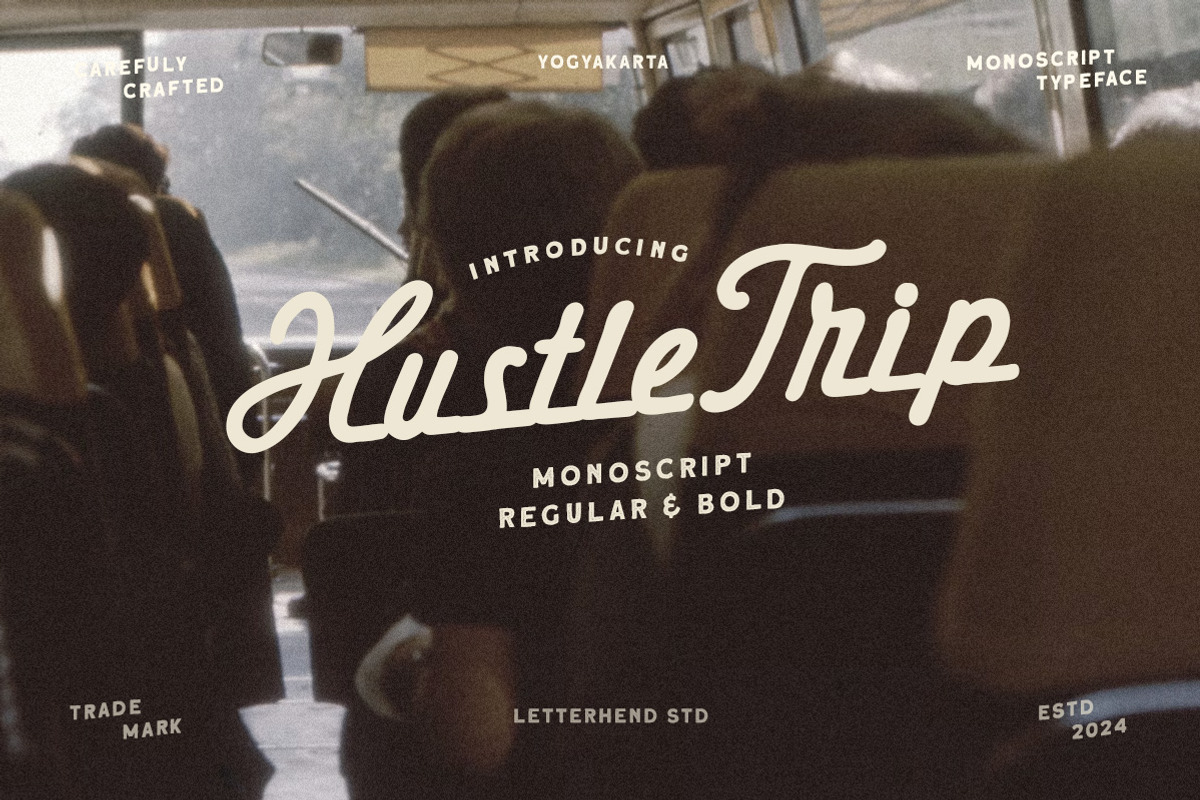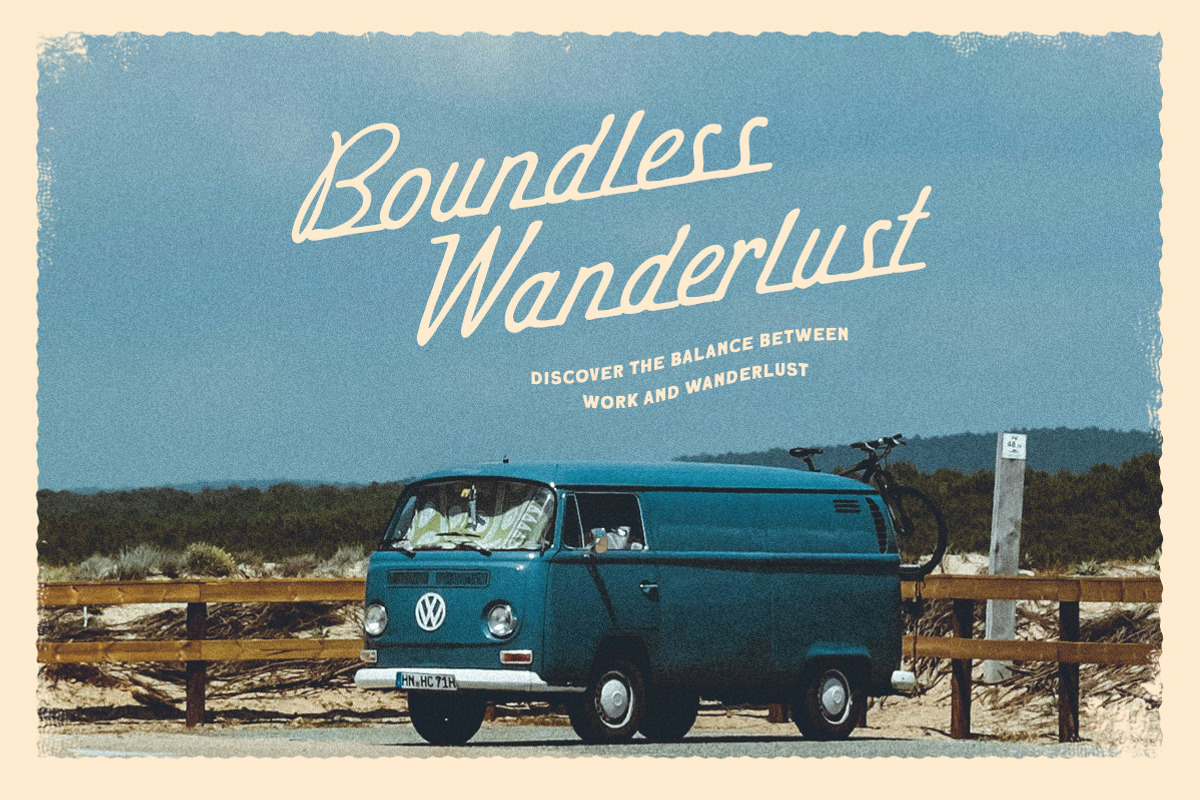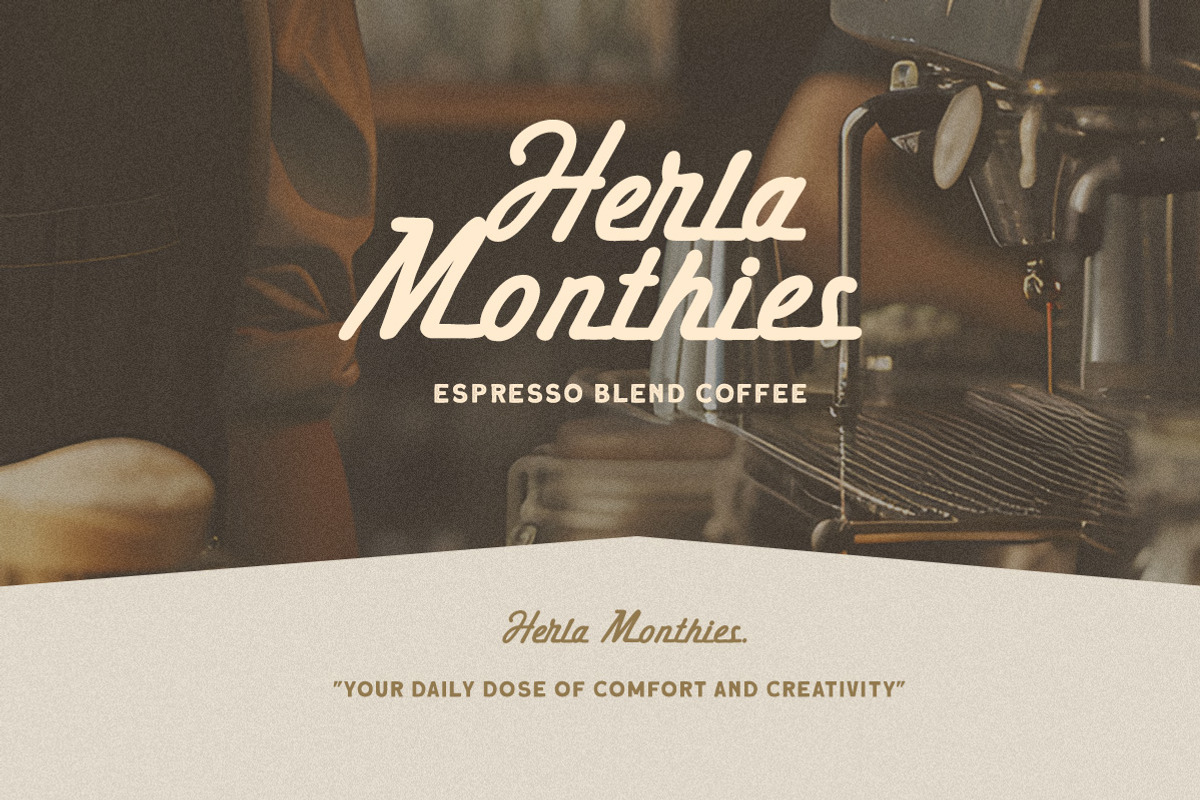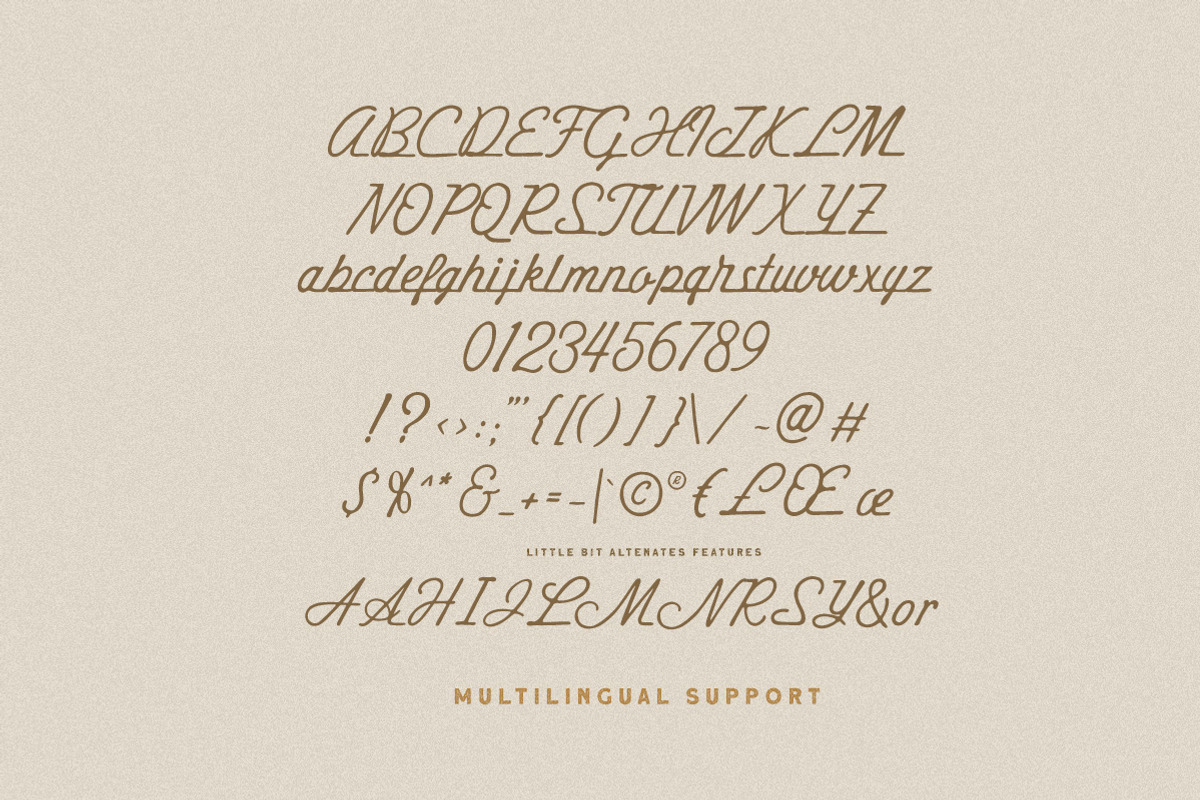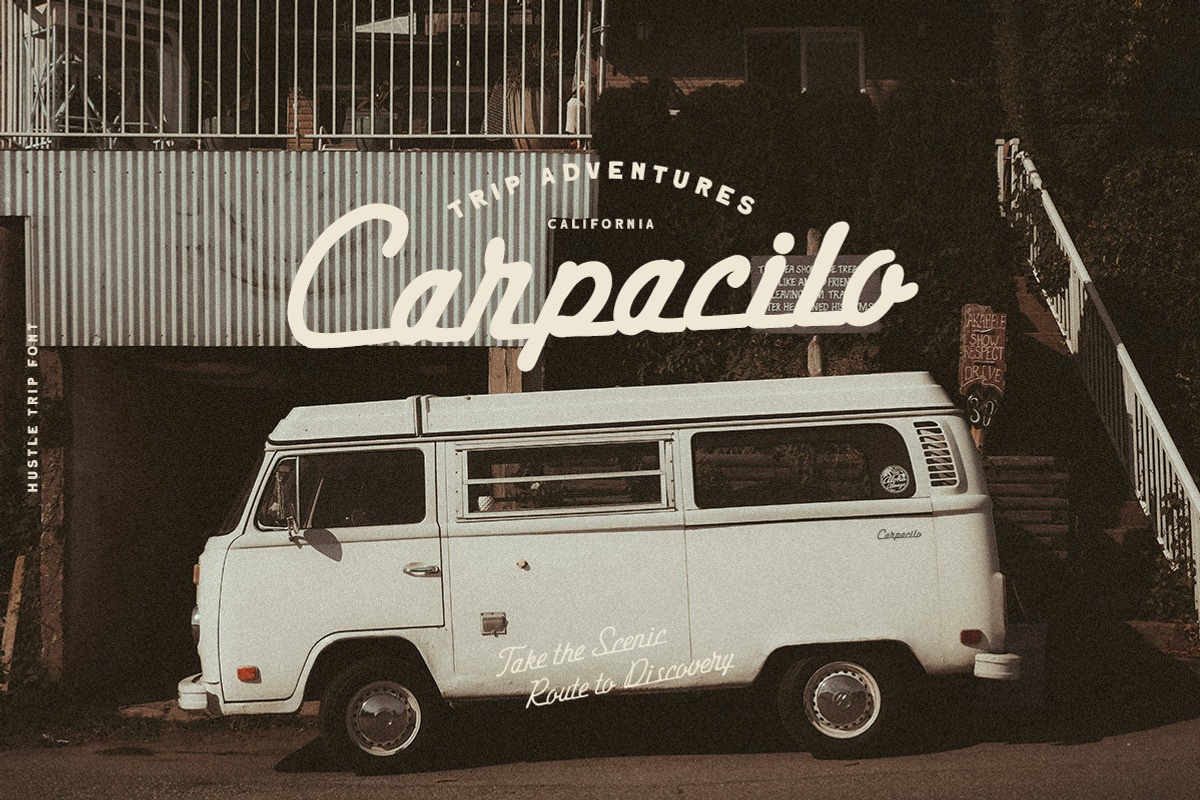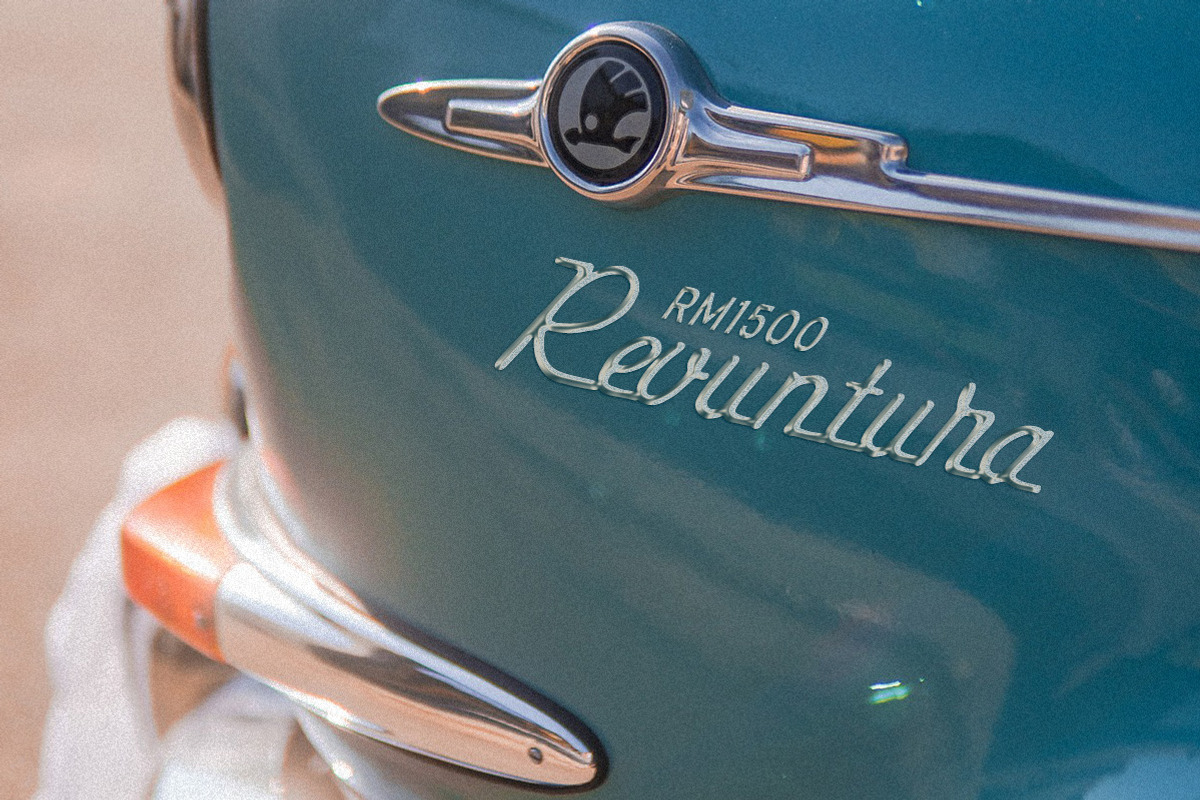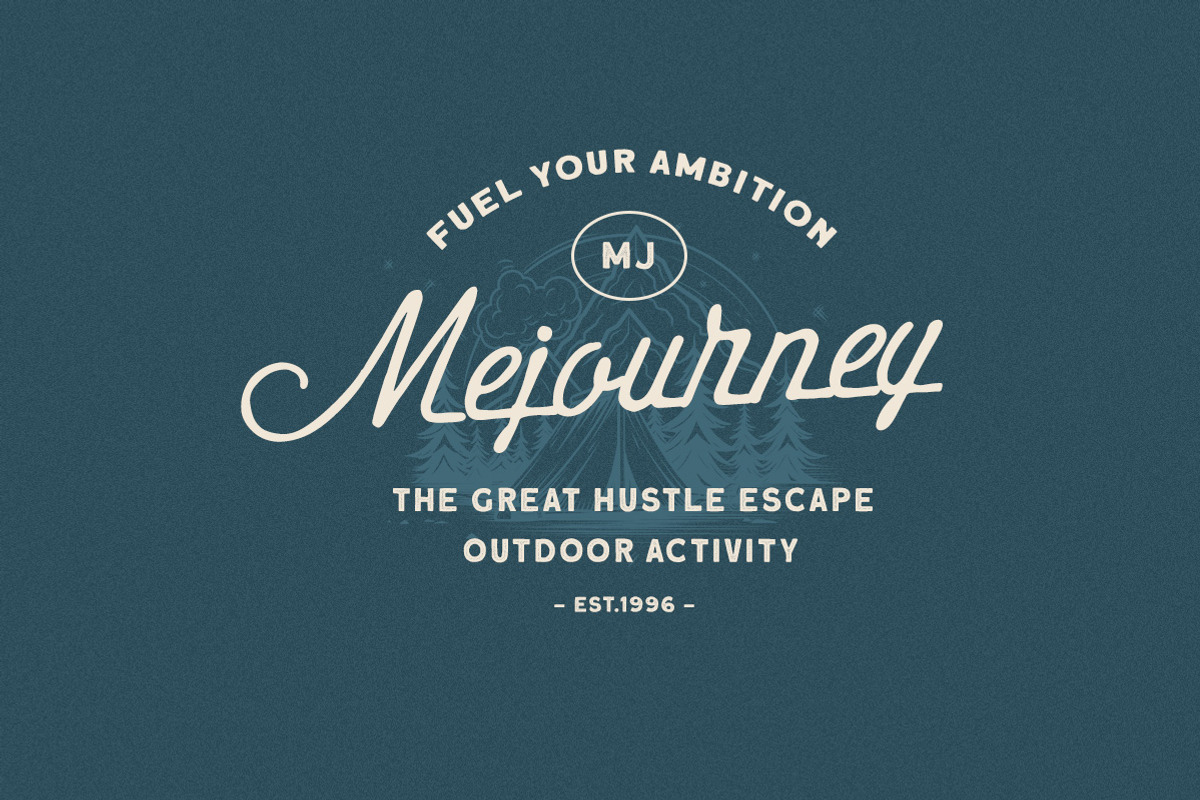
Hustle Trip Vintage Monoscript
Introducing Hustle Trip, a charming monoscript typeface that blends vintage nostalgia with modern versatility. Its smooth curves and dynamic strokes evoke the spirit of adventure, making it perfect for travel branding, lifestyle projects, or retro-inspired designs. With two weights—Regular and Bold—it adapts effortlessly to any creative need, from logos to posters and editorial layouts.